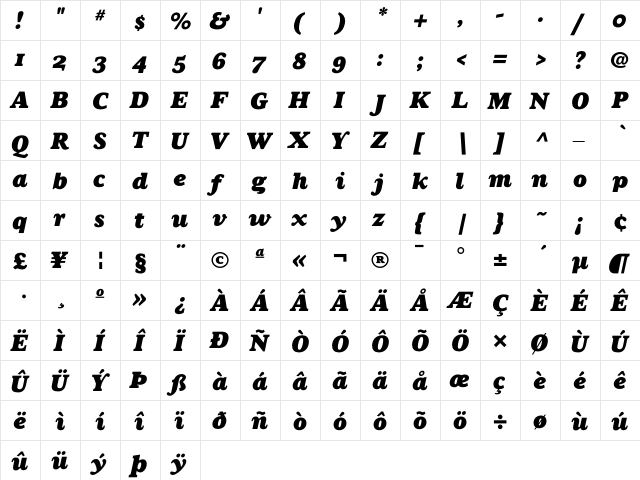
AureaUltra Italic
Design Context for AureaUltra Typeface
AureaUltra is a composed and adaptable typeface that performs quietly and consistently across a wide range of design contexts. The dynamic lean of this cut emphasises speed and emphasis in any layout.
Pro Tip: Try AureaUltra for annotation and caption copy alongside an upright companion — the contrast in angle creates a dynamic but ordered typographic system.